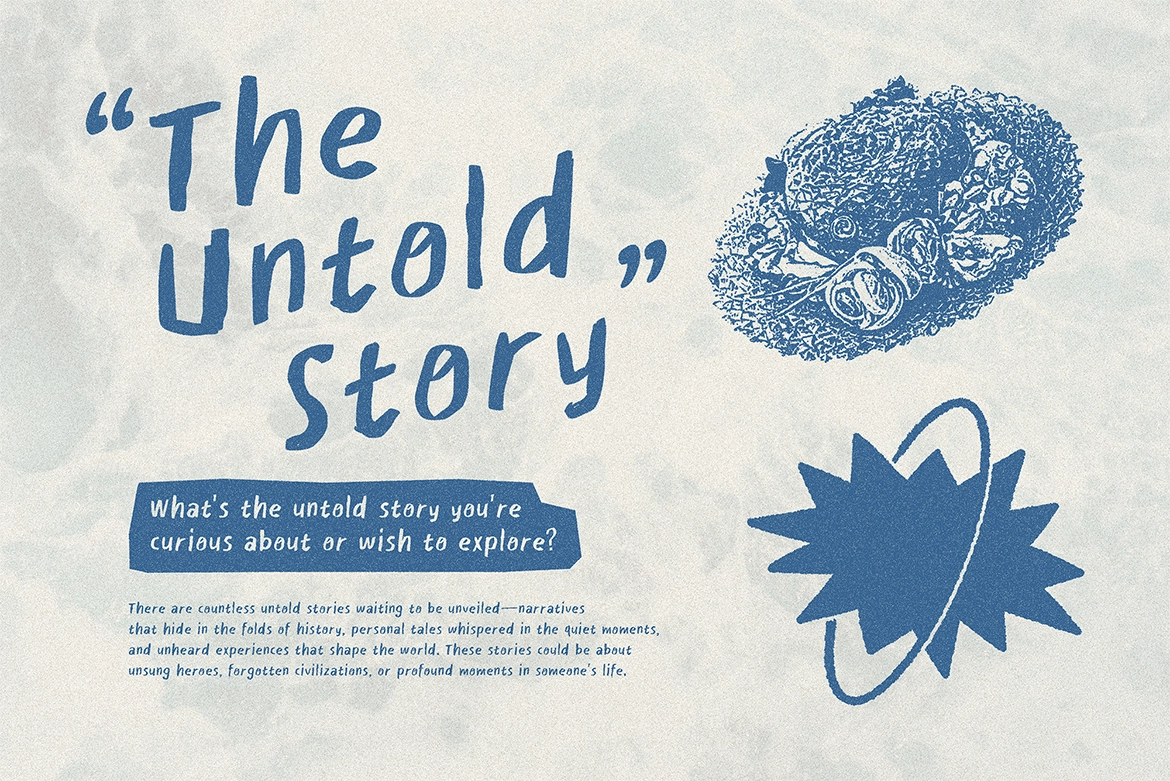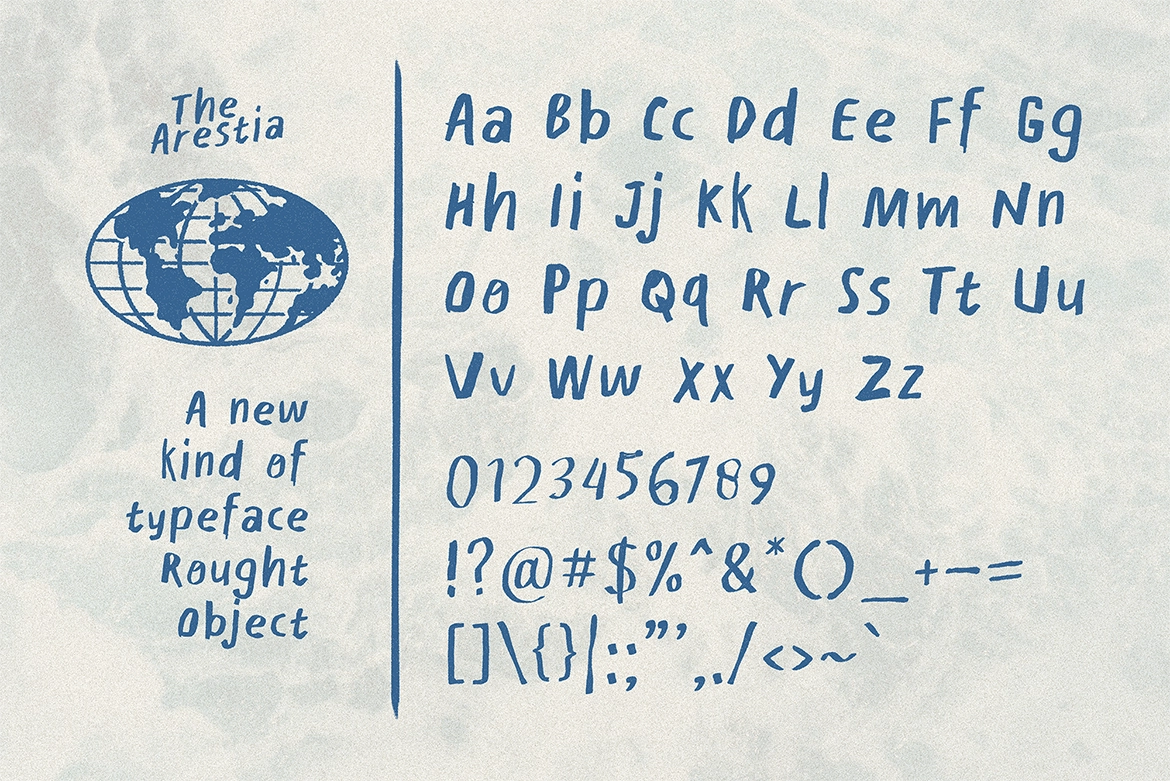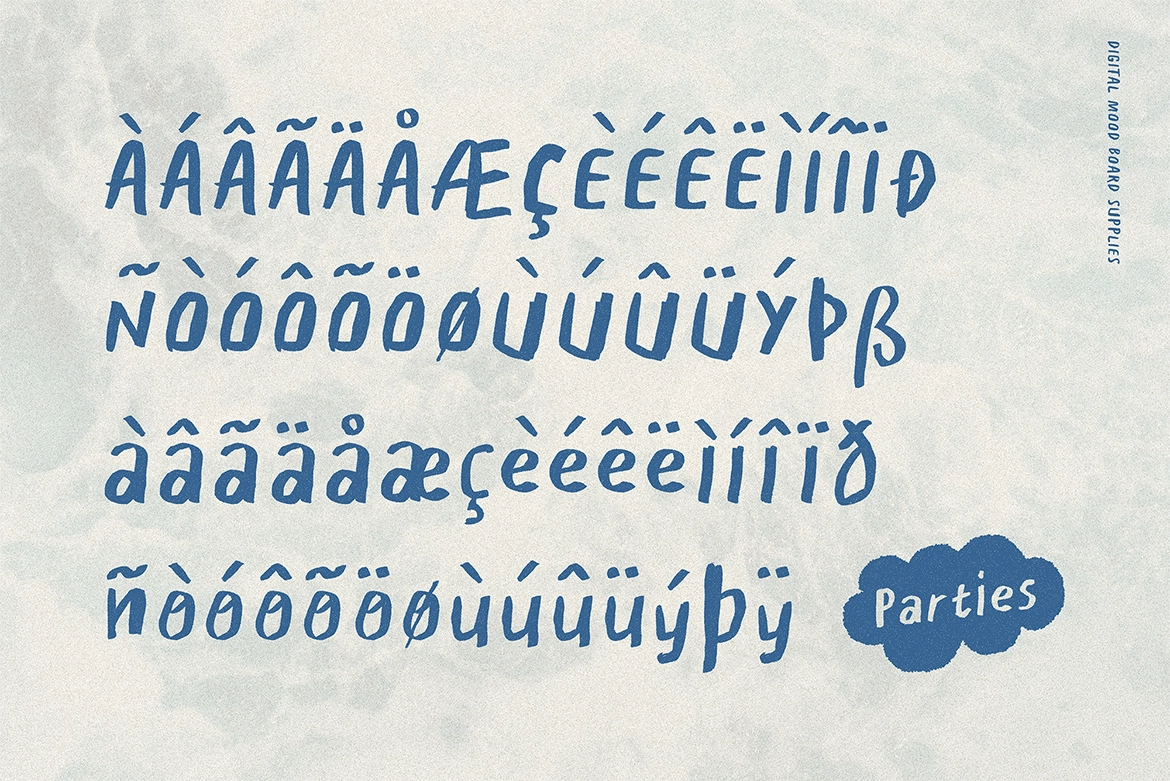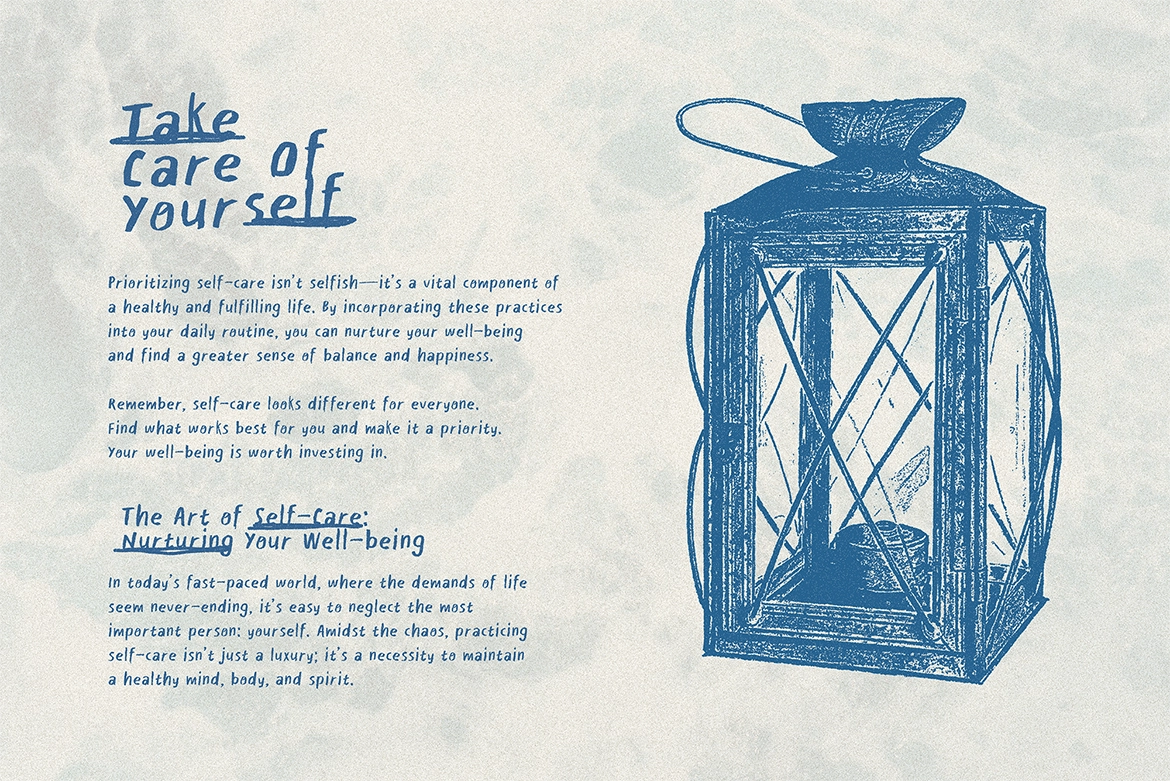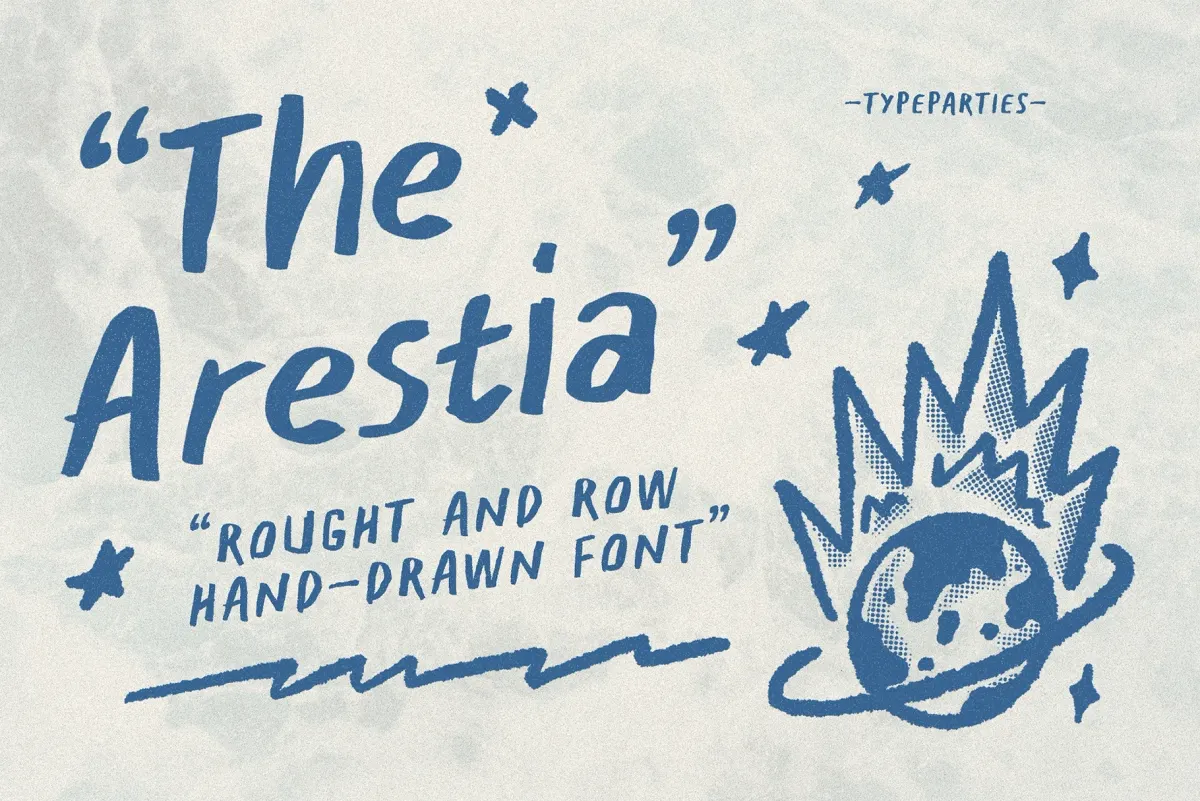
Arestia Rough Handwritten Font
Arestia is a unique and enchanting handwritten font that brings a touch of authenticity and warmth to your creative projects. Crafted with unstructure, this font is designed to add a personalized and human touch to your work, making it stand out in a digital uniformity. Arestia font perfect for poster, logo, social media posts, product logo, and all your unique projects.